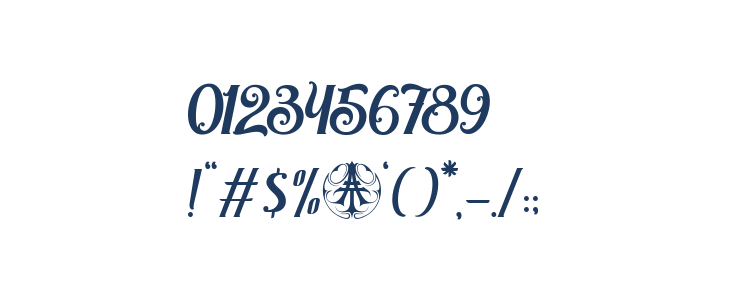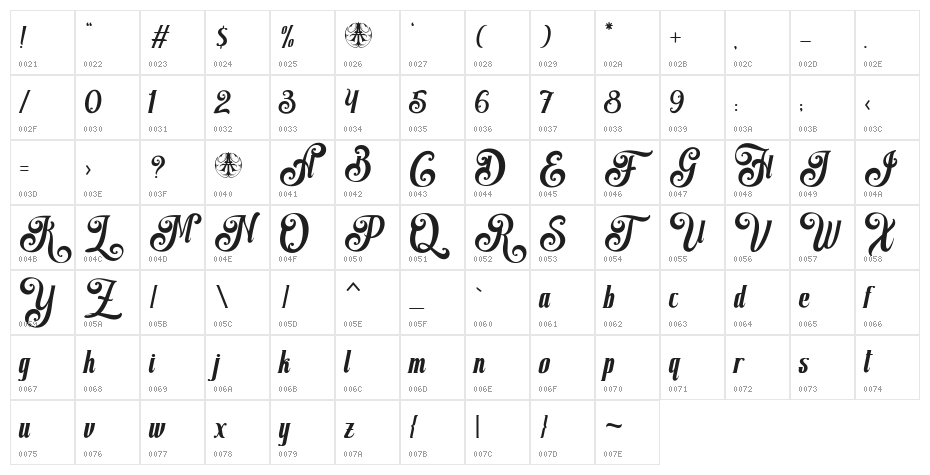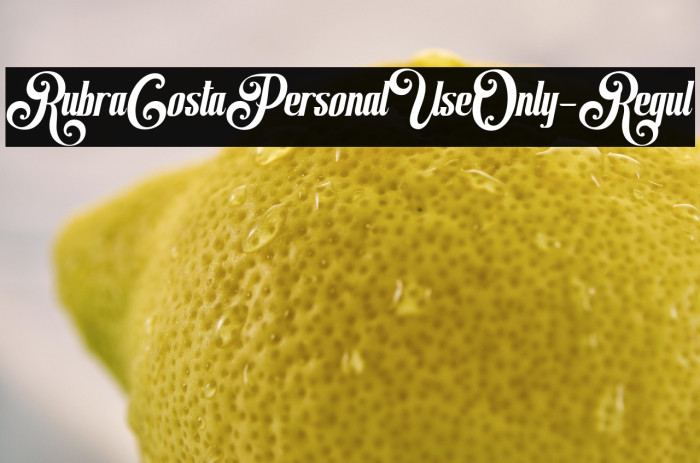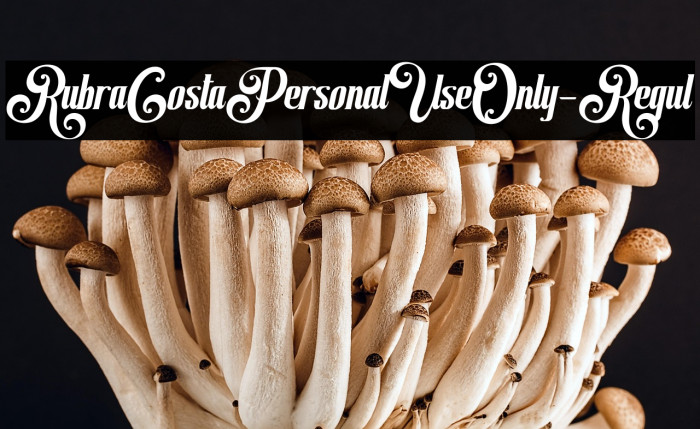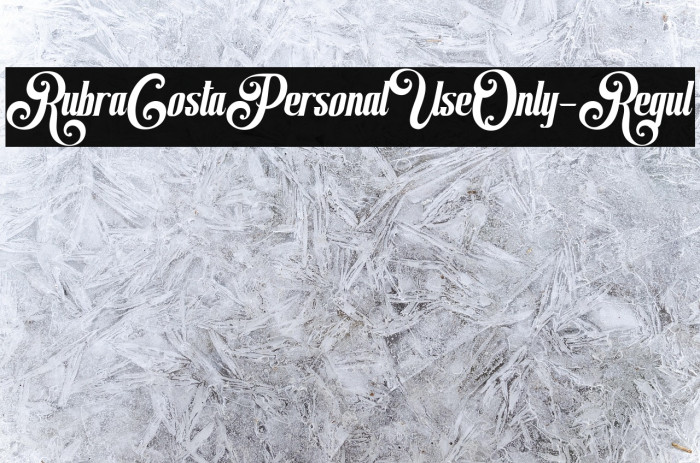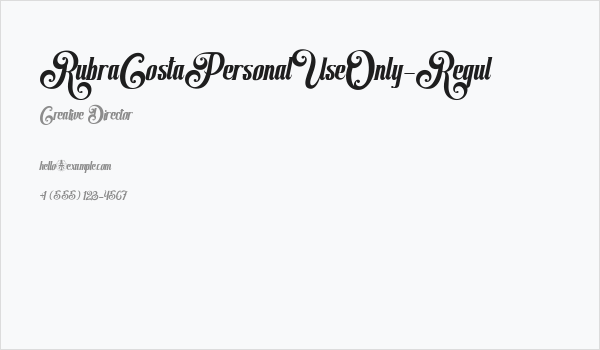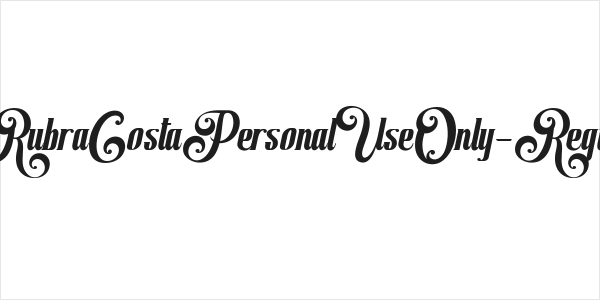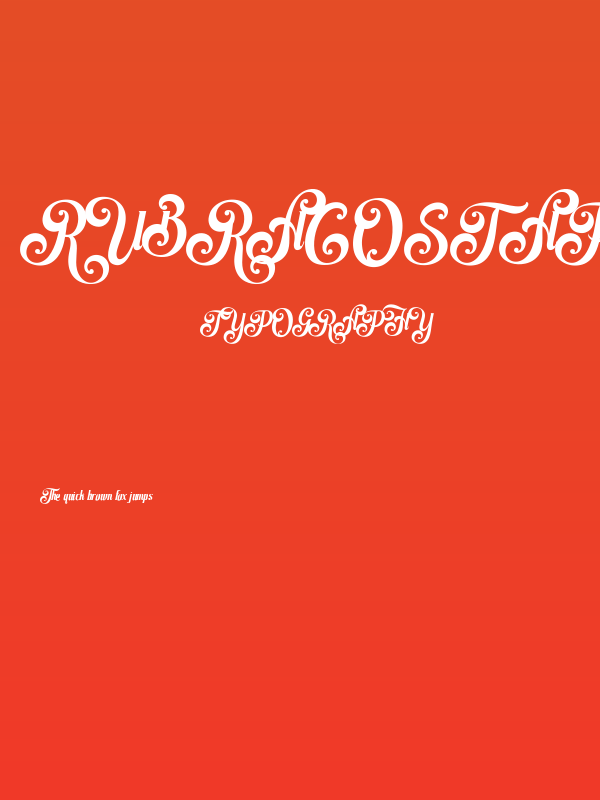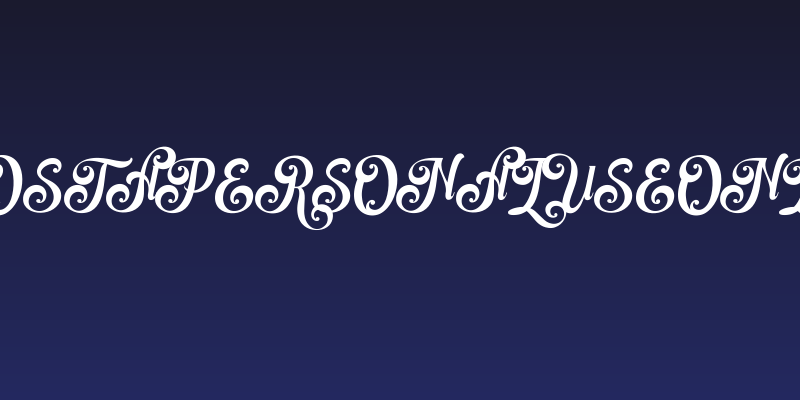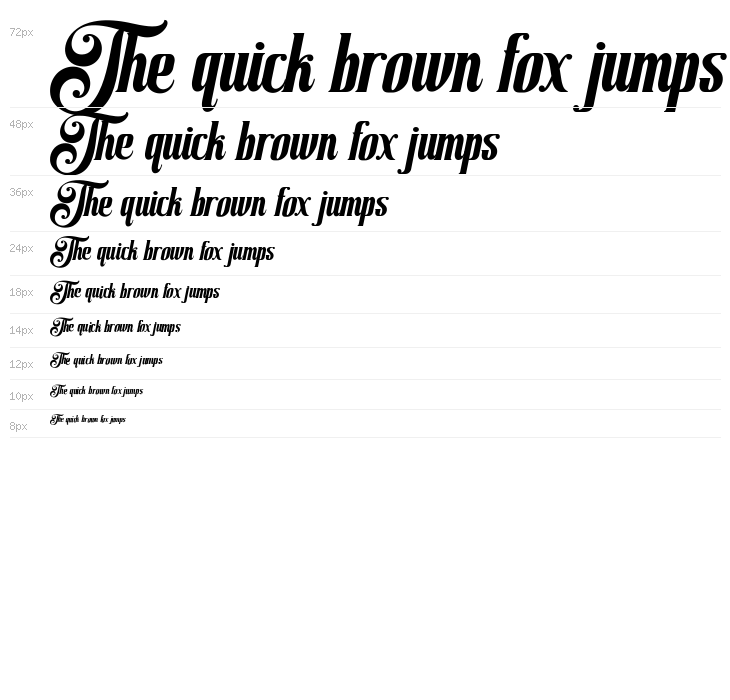
RubraCostaPersonalUseOnly-Regul Font
RubraCostaPersonalUseOnly-Regul Description
This font features an ornate and decorative style, characterized by its intricate swirls and flourishes that embellish each letter. The uppercase letters are particularly elaborate, with loops and curls that give them a whimsical and artistic appearance. The lowercase letters, while still decorative, are more streamlined and maintain a consistent flow. The numerals are bold and maintain the decorative theme, with unique curves that make them stand out. Special characters are equally ornate, adding a touch of elegance to punctuation and symbols. This font is ideal for projects that require a touch of sophistication and creativity.
| Use Case | Logos, Invitations, Decorative headings |
| Proposed Projects | Ideal for wedding invitations, greeting cards, logos, and branding materials that require a sophisticated and artistic touch. |